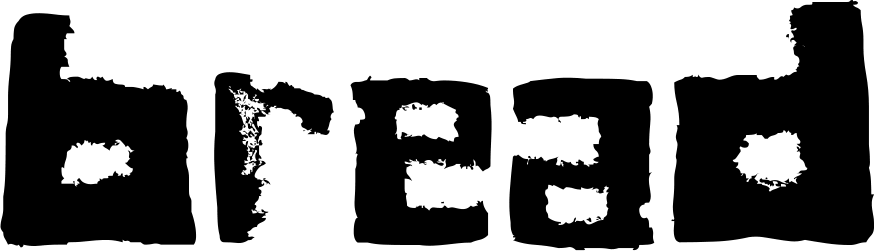
Bread Font
Designed byNitcha Veerayothin
Try this aggressive bold font and impress your clients. Bread is coming with a combination of bold and thin characters and offers lowercase letters and numbers only. This case can be utilized for posters, flyers, books, and so on.